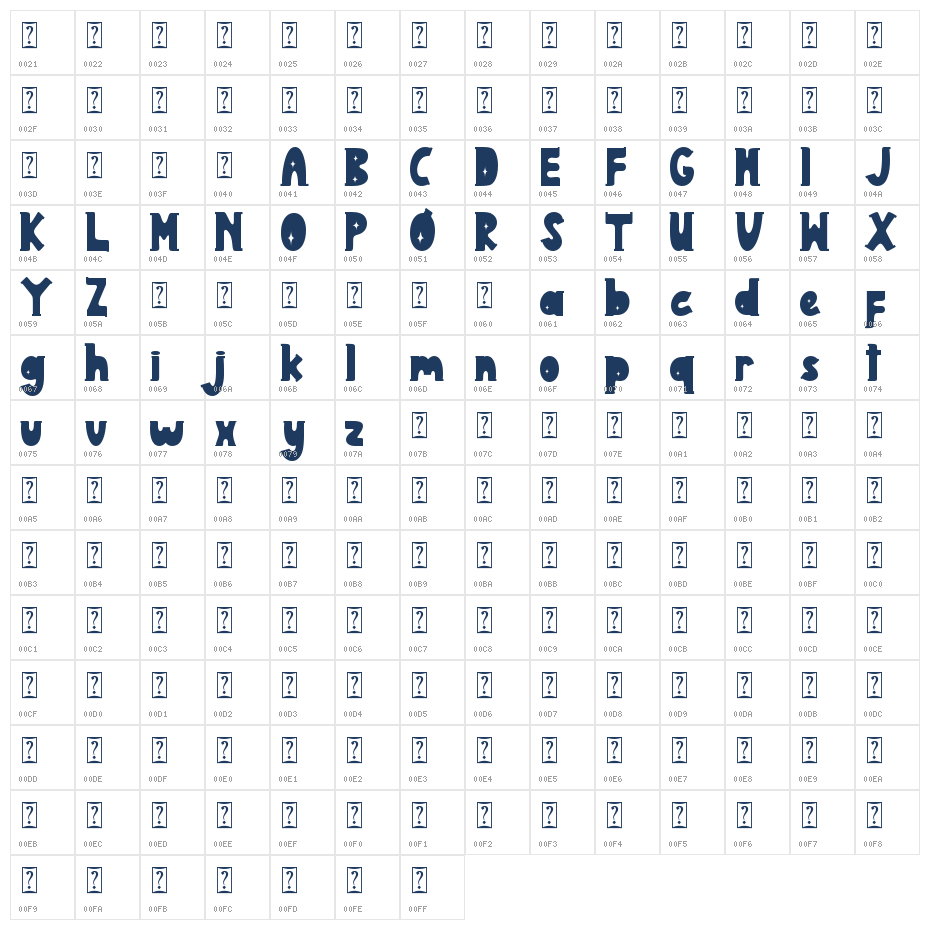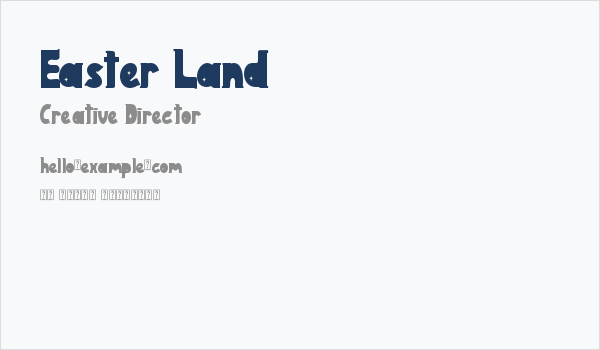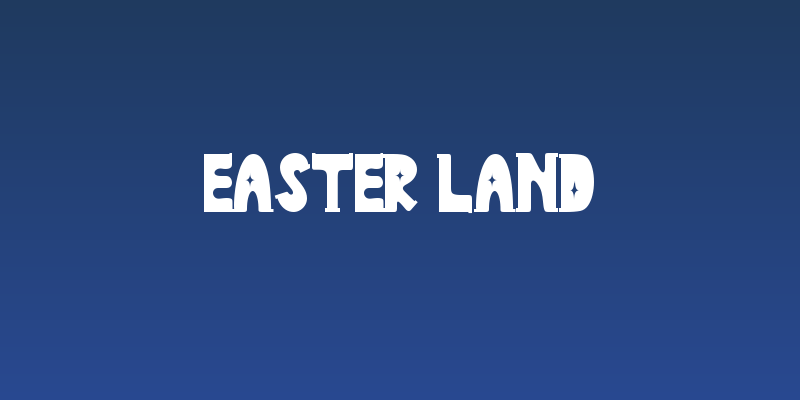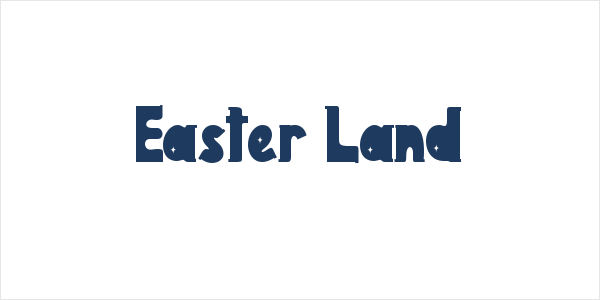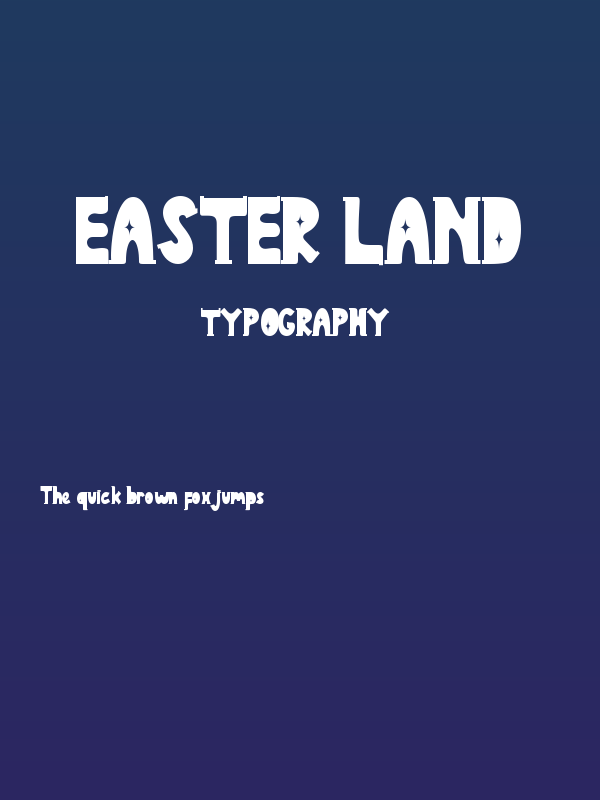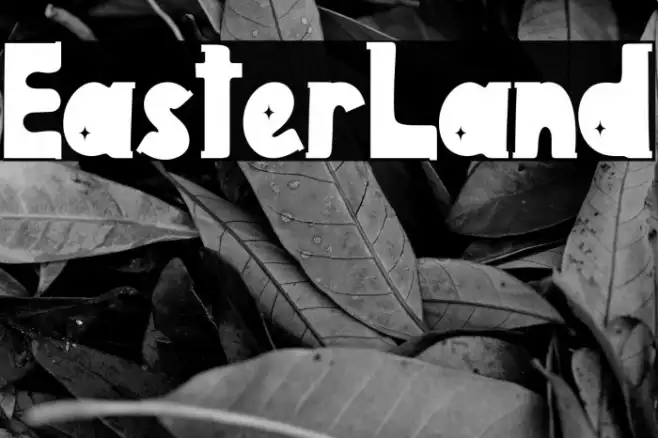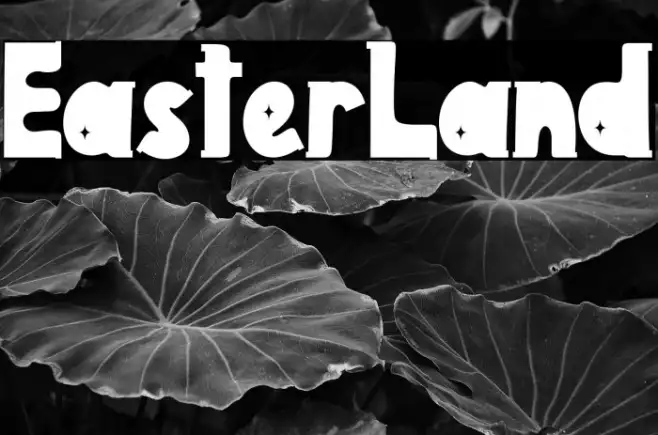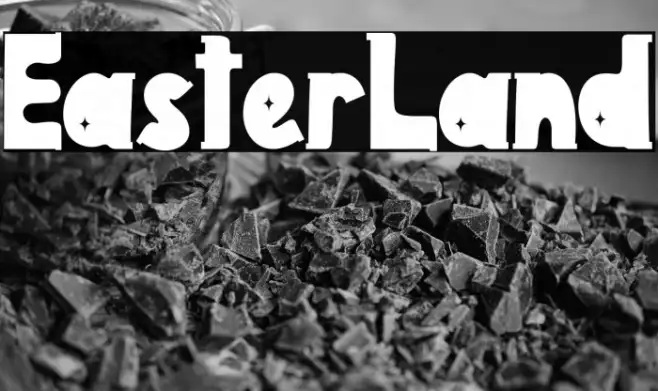
Easter Land Font
Easter Land Description
A bold, playful, and decorative display font with a vintage style, featuring star-shaped cutouts within the characters.
Easter Land
| Overall Style | Vintage, Retro, Playful |
| Use Case | Headlines, Posters, Logos, Branding |